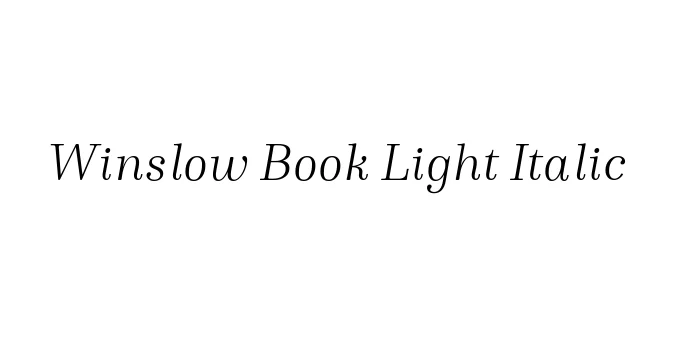
Winslow Book Light Italic
Designed by Kimmy Kirkwood
Winslow Book Light Italic is a refined and highly legible serif typeface designed by Kimmy Kirkwood of Kimmy Design. It was developed as a more functional, text-focused companion to the original Winslow family, which is known for its decorative flair. The Light Italic variant specifically offers a graceful, rhythmic slant that adds a sophisticated and calligraphic touch to the page while maintaining the clarity required for smaller point sizes.
Inspired by the typographic aesthetics of the late 19th century, the font successfully bridges the gap between classic proportions and modern geometric precision. Its delicate weight and unique terminal treatments make it a standout choice for editorial designers looking for a typeface that conveys both heritage and contemporary elegance in digital and print mediums.
Winslow Book Light Italic Best Uses
Perfect for high-end magazine body copy and literary journals.
Ideal for sophisticated logos and luxury brand identities.
Excellent for typesetting book interiors and long-form prose.
Adds a professional and authoritative aesthetic to blog posts and digital articles.